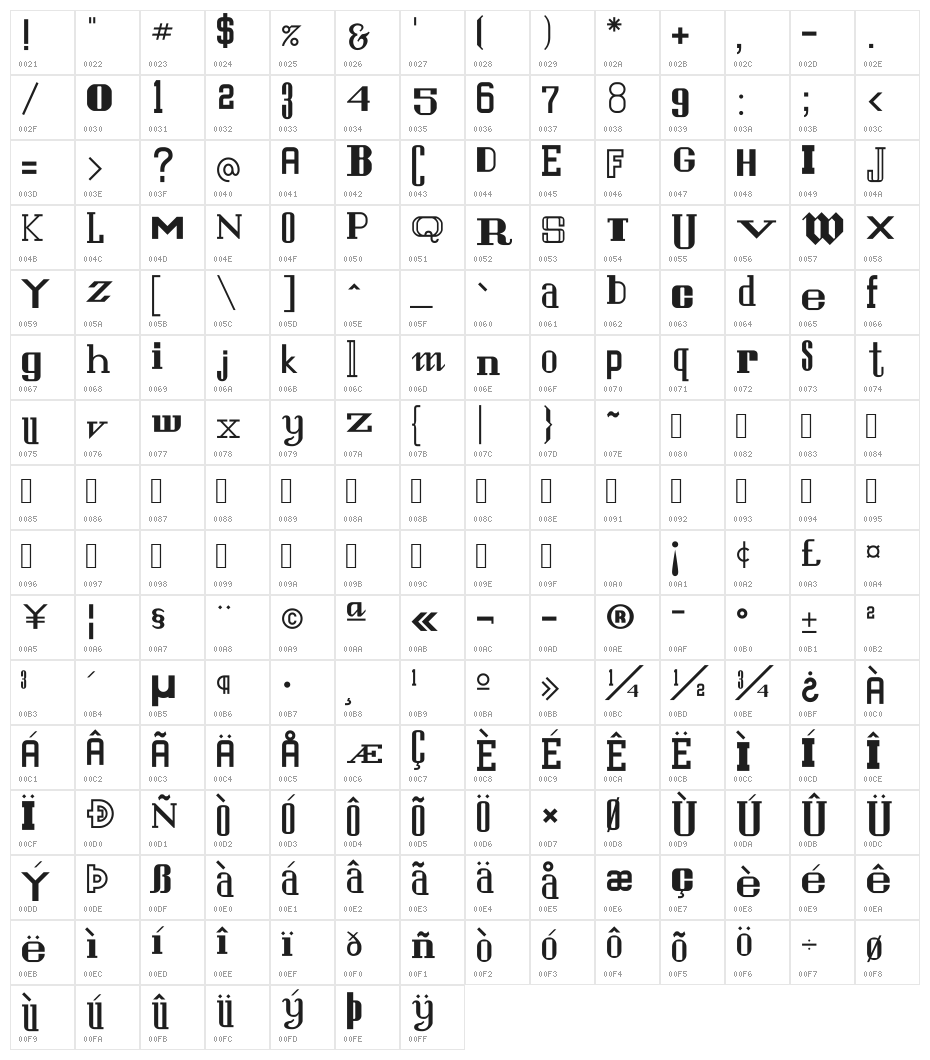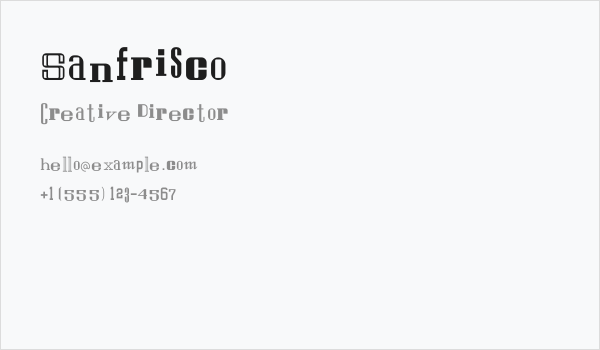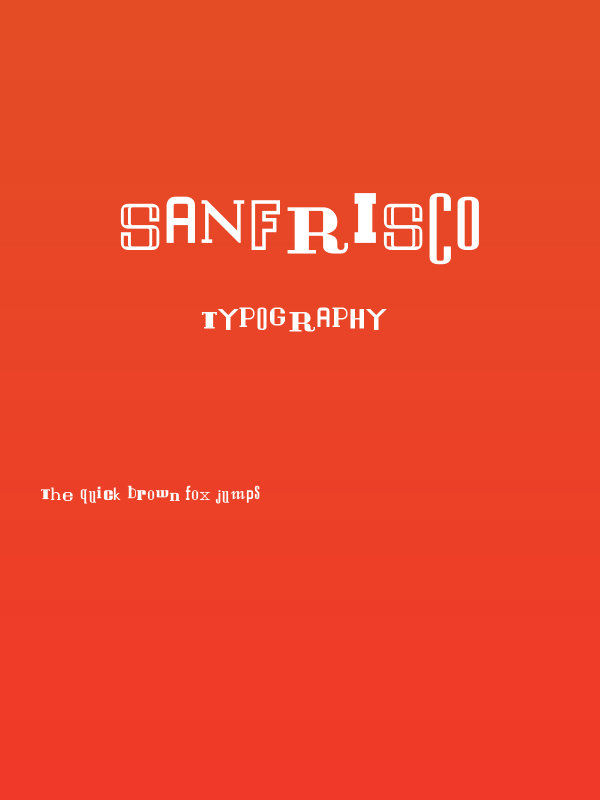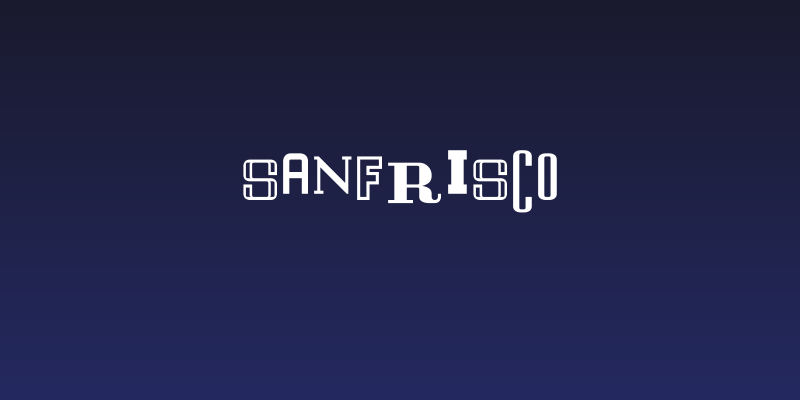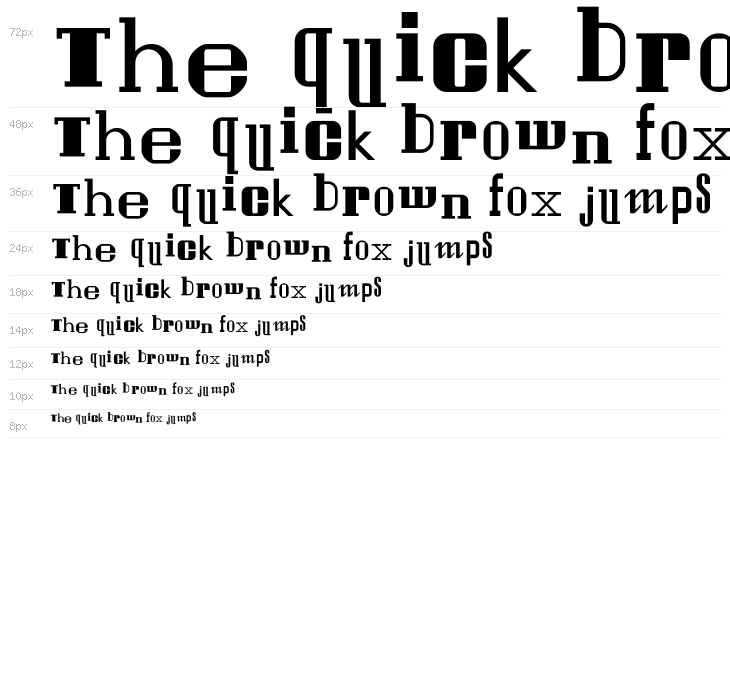
Sanfrisco Font
Sanfrisco Description
This font features a bold and eclectic style, combining elements of both modern and vintage aesthetics. The uppercase letters are characterized by their strong, geometric shapes with varying line thicknesses, giving them a dynamic and eye-catching appearance. Some letters incorporate unique design elements, such as the double lines in 'Q' and the extended serifs in 'T'. The lowercase letters maintain a consistent style, with a mix of rounded and angular forms that add to the font's distinctive personality. The numerals are bold and clear, ensuring readability while maintaining the overall design theme. Special characters are creatively designed, adding a playful touch to the font's overall look.
Overall StyleModern, Vintage
Proposed ProjectsIdeal for branding, posters, and creative projects that require a standout, artistic typeface.